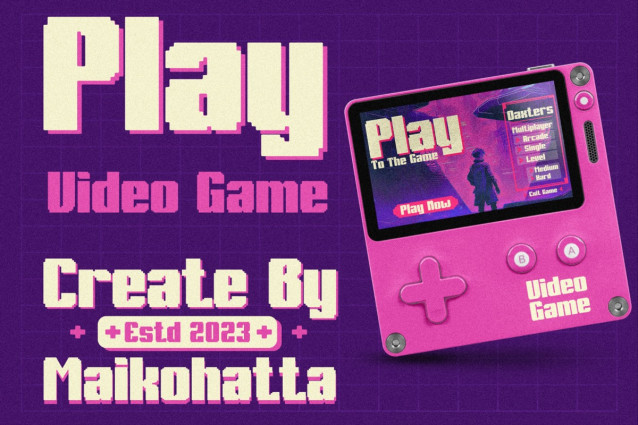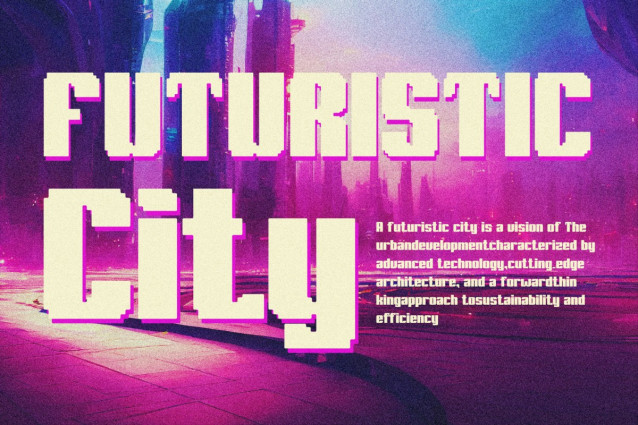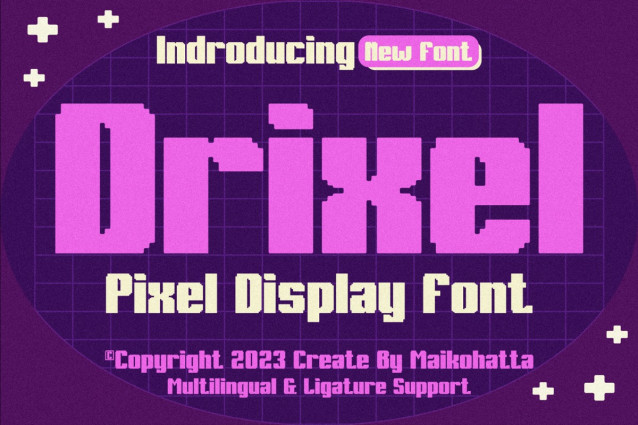
Drixel Pixel Font
Drixel Pixel Font – Pixel Display Font. This Font is a type of lettering that features a futuristic design inspired by advanced technology. This font reflects the digital era and technological advancements, bringing a sense of modernity, innovation, and energy to any design. With sharp lines, geometric letter shapes, and futuristic elements, this font is suitable for projects related to technology, robotics, science, and modern lifestyle. This font are often found in logos, website designs, posters, and other creative projects that require a futuristic touch.